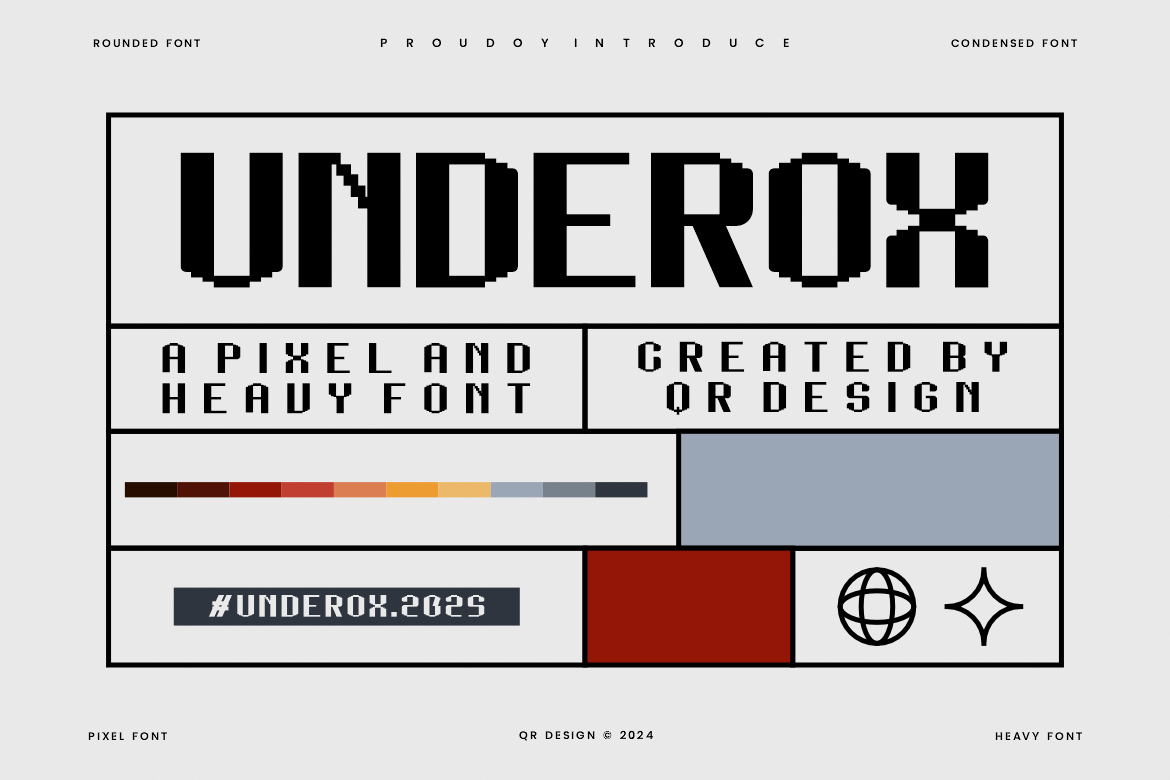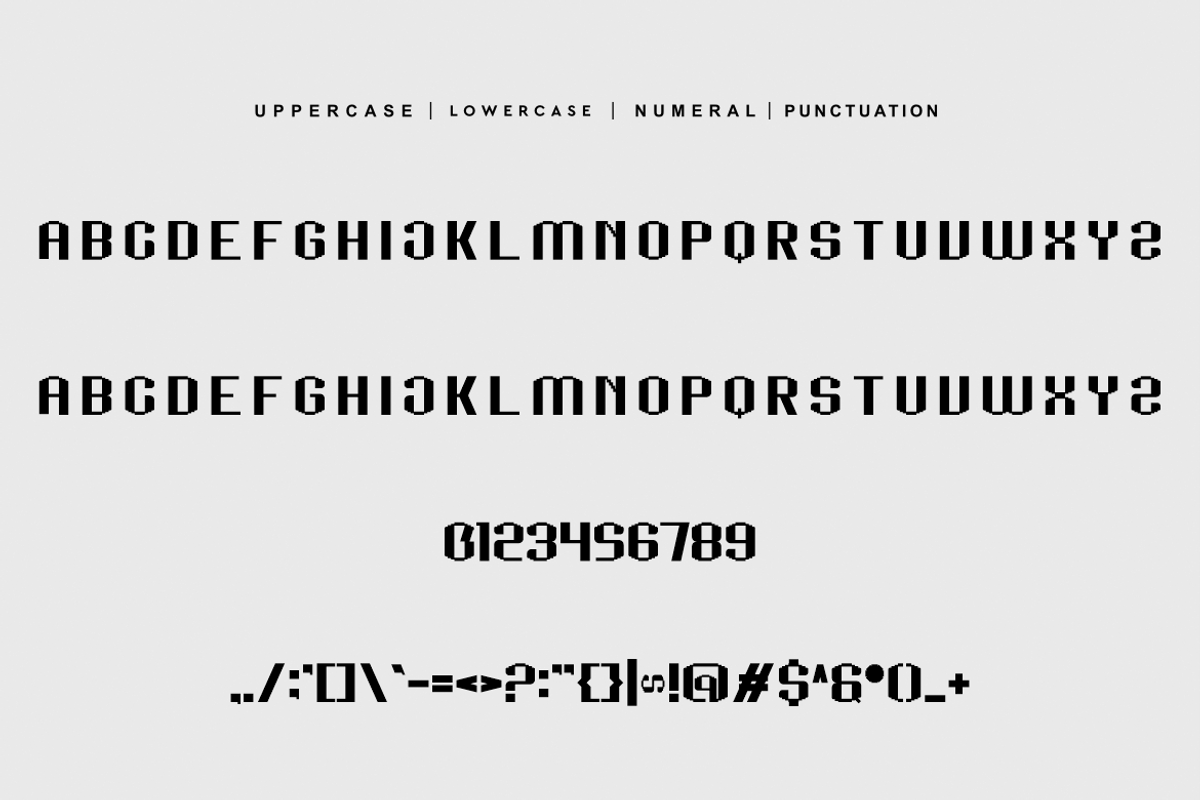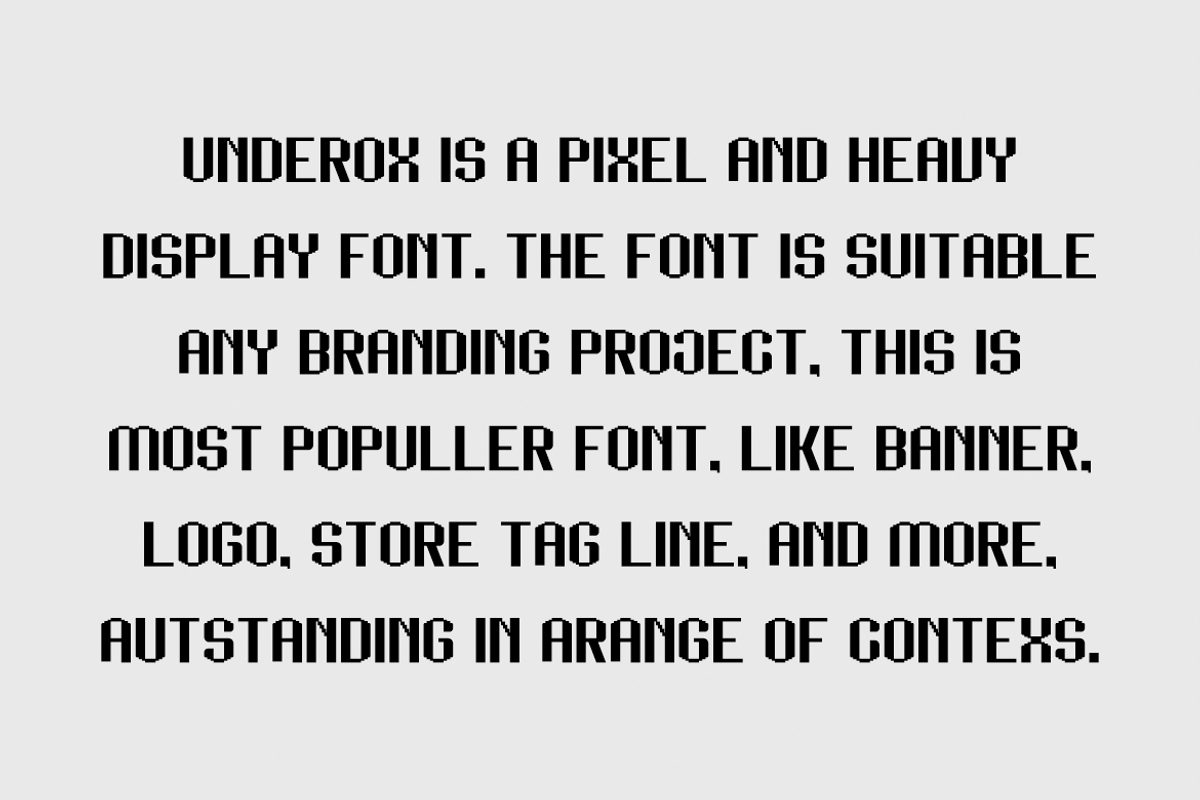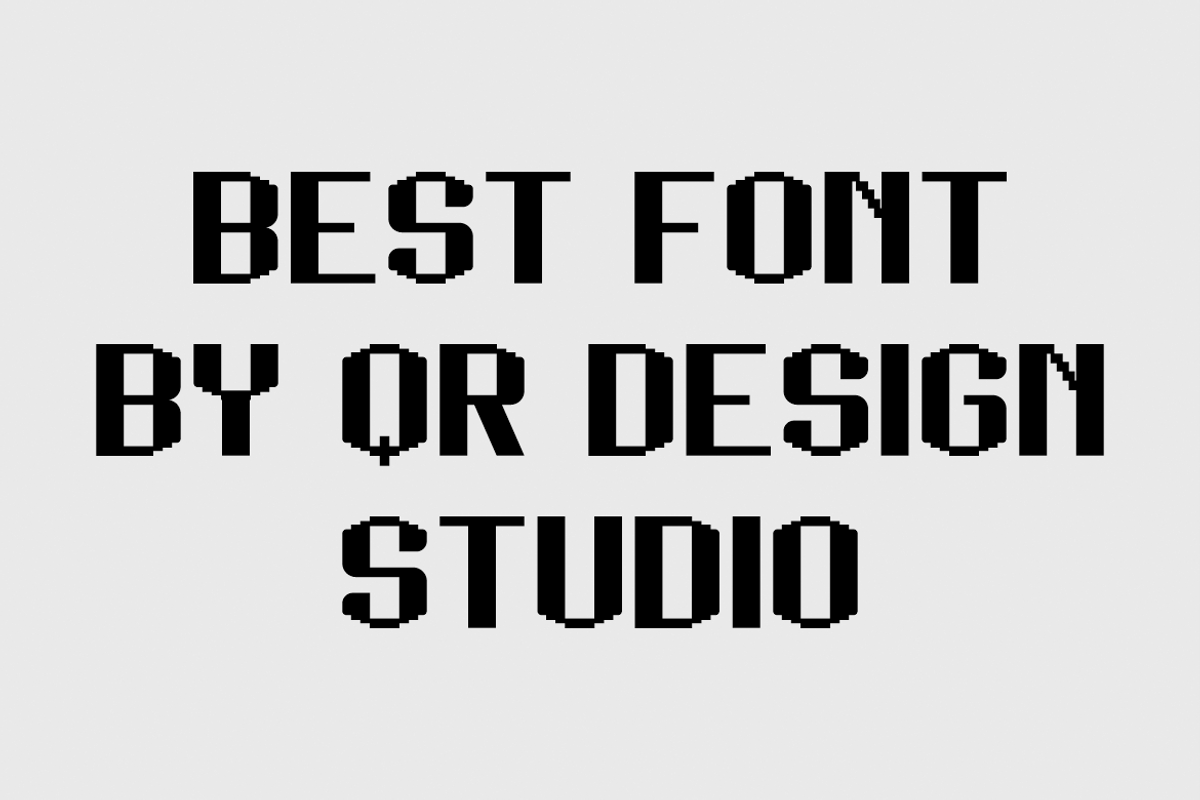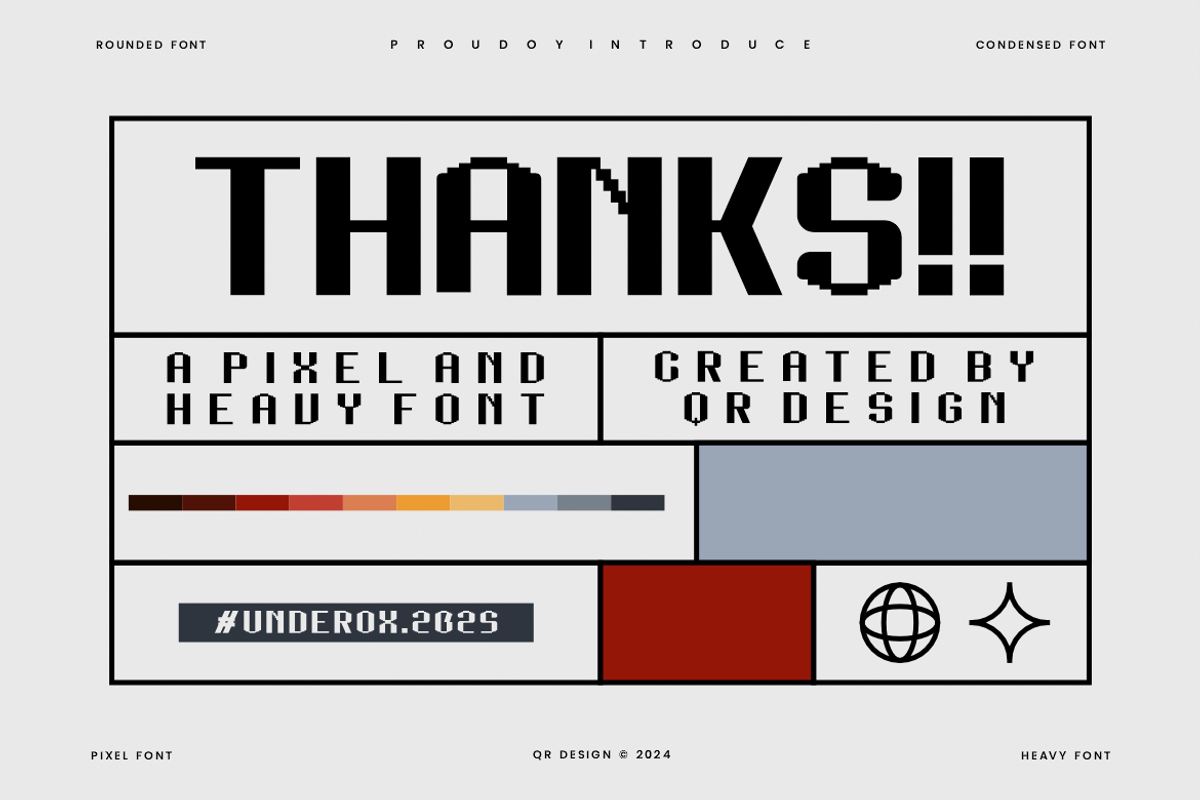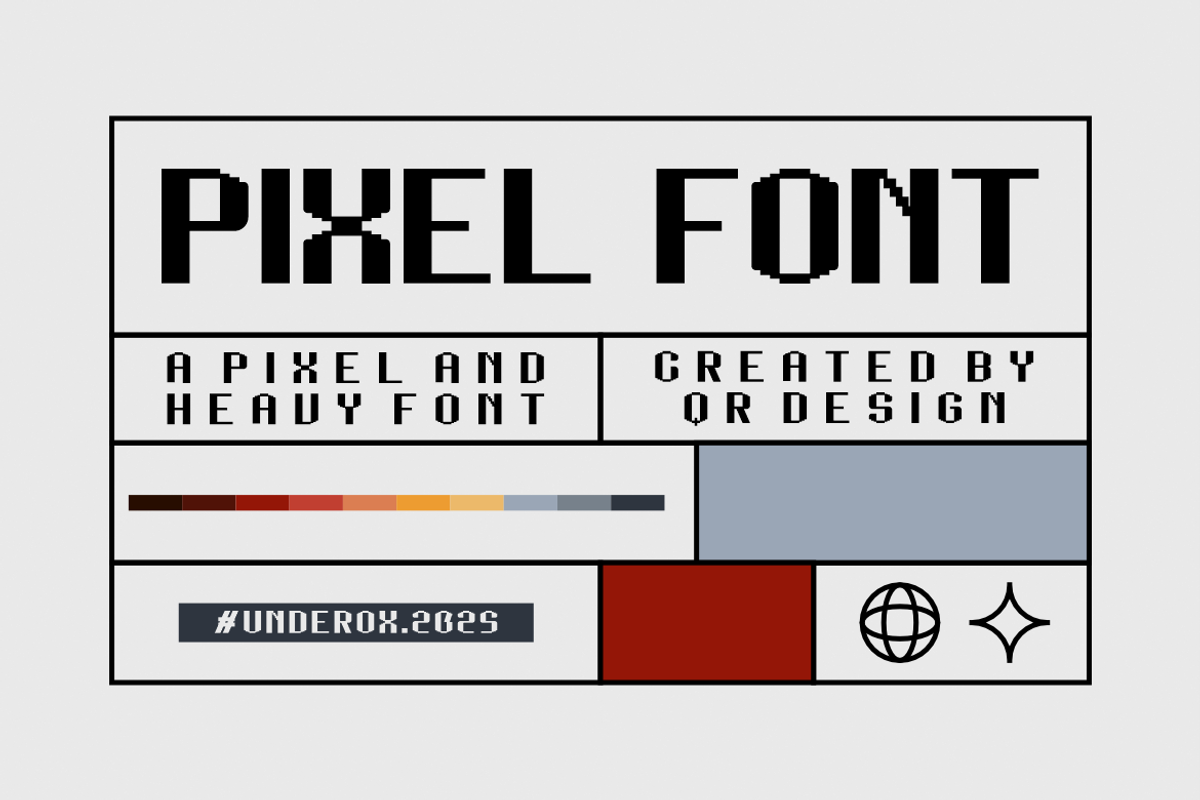
Underox - Pixel & Heavy Font
Underox - Pixel & Heavy Font is a bold and authentic display font. The font is suitable for any branding project like poster, logo, sport, and many more. Outstanding in a wide range of contexts.